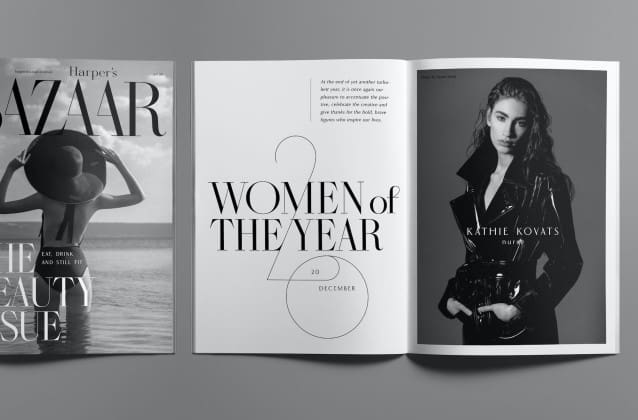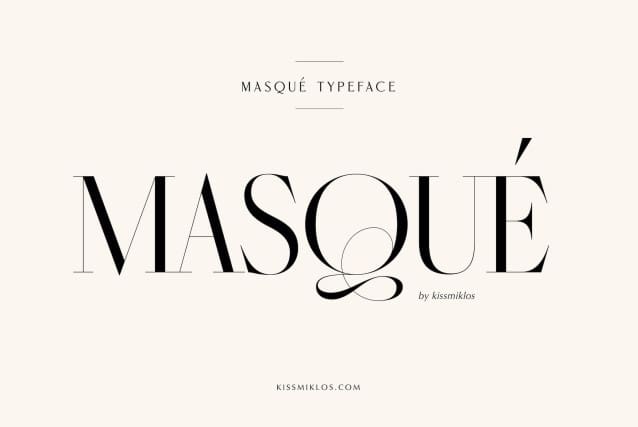
Masqué Font
Masqué Font, this typeface is inspired by the marvelous and historical Didot font. Masqué is a hairline typeface, so works best in bigger sizes, useful for headlines, titles, or shorter texts. You find many alternates to several letters.